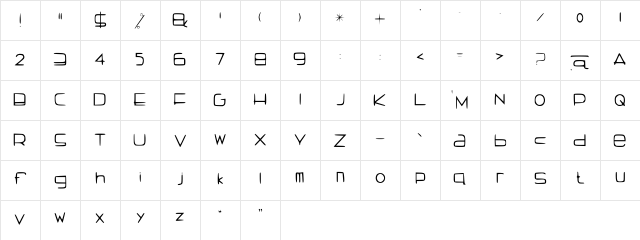
Rotund Medium
Design Context for Rotund
Rotund is a composed and adaptable typeface that performs quietly and consistently across a wide range of design contexts.